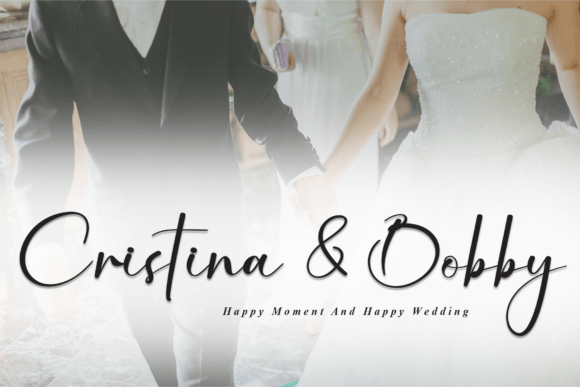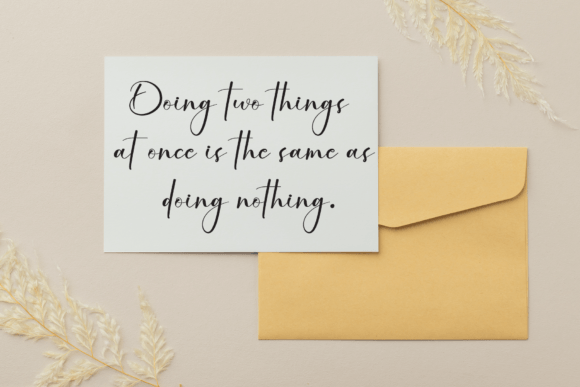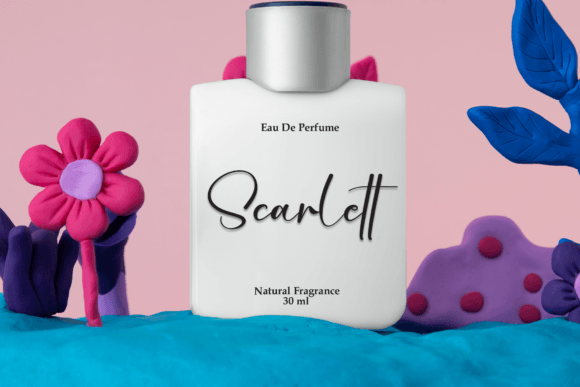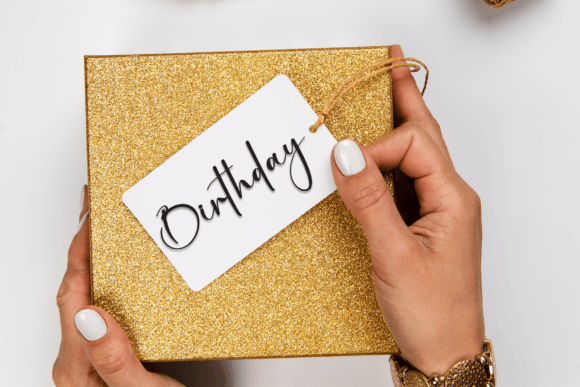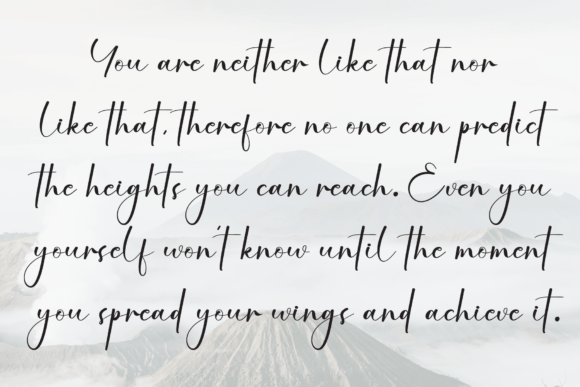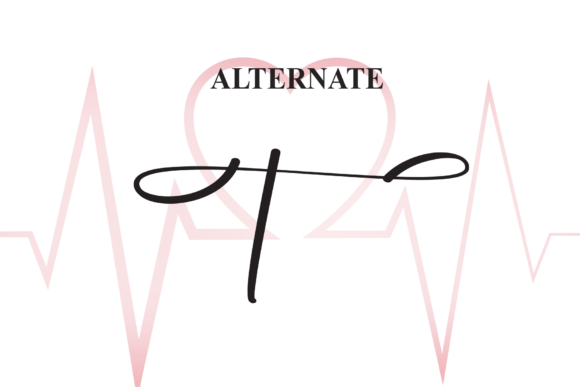
Hearthbeat Font: Elevate Your Designs with Elegance and Sophistication
In the world of typography, few fonts manage to capture the essence of elegance and sophistication as beautifully as Hearthbeat. This stunning script font is a masterpiece of design, boasting a unique blend of style, refinement, and whimsy. Whether you’re a designer, crafter, or DIY enthusiast, Hearthbeat is sure to become your go-to choice for adding a touch of handwritten charm to your projects.
The Beauty of Hearthbeat
Hearthbeat is a stylish and incredibly elegant script font that exudes warmth and personality. Its flowing lines, delicate curves, and intricate details make it perfect for a wide range of design applications. From wedding invitations and thank you cards to quotes, greeting cards, logos, and business cards, Hearthbeat adds a touch of sophistication and glamour to any project.
What Makes Hearthbeat Special?
So, what sets Hearthbeat apart from other script fonts? Here are just a few reasons why this font is a cut above the rest:
- Elegant and Refined: Hearthbeat’s sleek lines and flowing curves create a sense of elegance and refinement, making it perfect for high-end designs and luxury brands.
- Handwritten Touch: With its unique imperfections and subtle variations, Hearthbeat has a distinctly handwritten feel that’s perfect for adding a personal touch to your designs.
- Versatile: Whether you’re designing for print or digital, Hearthbeat is a versatile font that works beautifully across a wide range of mediums and applications.
- Easy to Read: Despite its elegant and cursive nature, Hearthbeat is surprisingly easy to read, making it perfect for longer blocks of text and body copy.
Design Ideas with Hearthbeat
With its versatility and elegance, Hearthbeat is perfect for a wide range of design projects. Here are just a few ideas to get you started:
- Wedding Invitations: Add a touch of romance and sophistication to your wedding invitations with Hearthbeat’s elegant script.
- Branding and Logos: Use Hearthbeat to create a luxurious and high-end brand identity that stands out from the crowd.
- Greeting Cards: Add a personal touch to your greeting cards with Hearthbeat’s beautiful, handwritten script.
- Quotes and Typography: Use Hearthbeat to create stunning typographic quotes and posters that showcase your favorite phrases and lyrics.
Tips for Using Hearthbeat
To get the most out of Hearthbeat, here are a few tips to keep in mind:
- Pair with Simple Fonts: For maximum impact, pair Hearthbeat with simple, sans-serif fonts to create a striking contrast.
- Experiment with Colors: Hearthbeat looks beautiful in a range of colors, from metallic gold and silver to rich jewel tones and soft pastels.
- Play with Size: Don’t be afraid to experiment with different font sizes to create visual interest and hierarchy in your designs.
In conclusion, Hearthbeat is a truly exceptional script font that offers a unique blend of elegance, sophistication, and whimsy. Whether you’re a designer, crafter, or DIY enthusiast, this beautiful font is sure to become a favorite in your collection. With its versatility, readability, and stunning good looks, Hearthbeat is the perfect choice for adding a touch of handwritten charm to your designs.